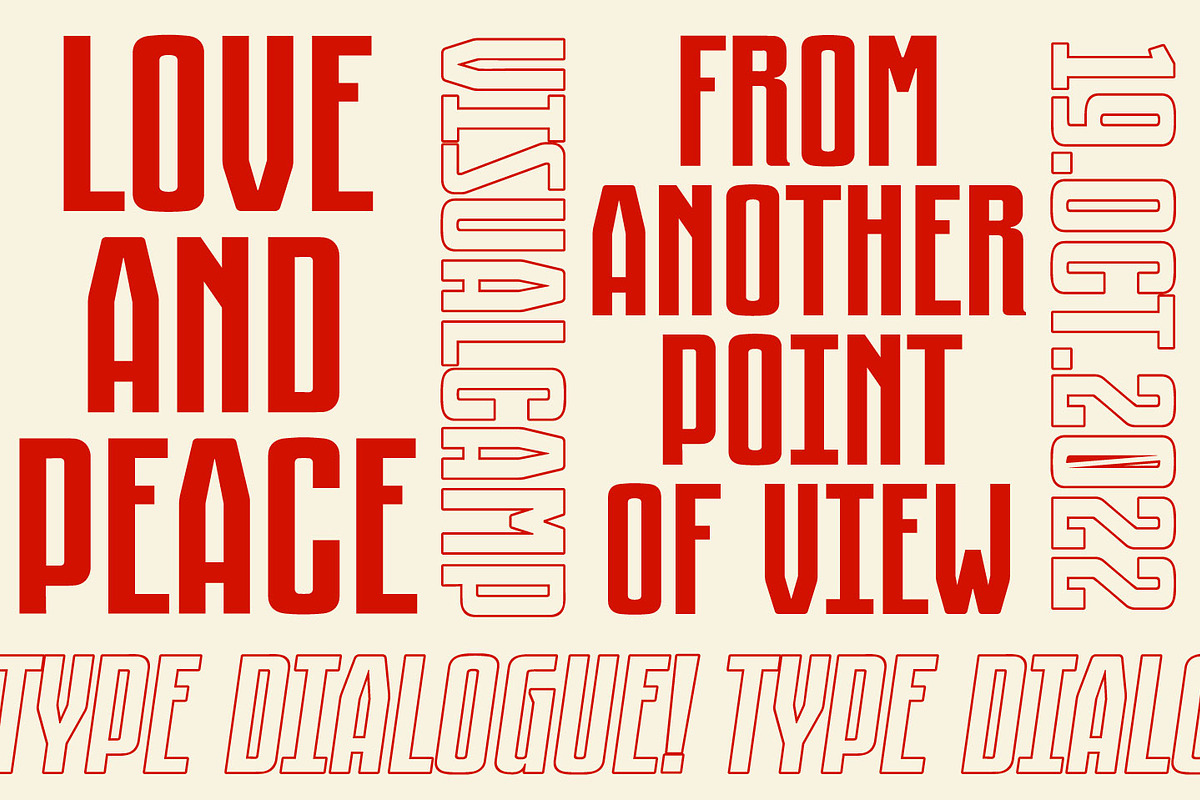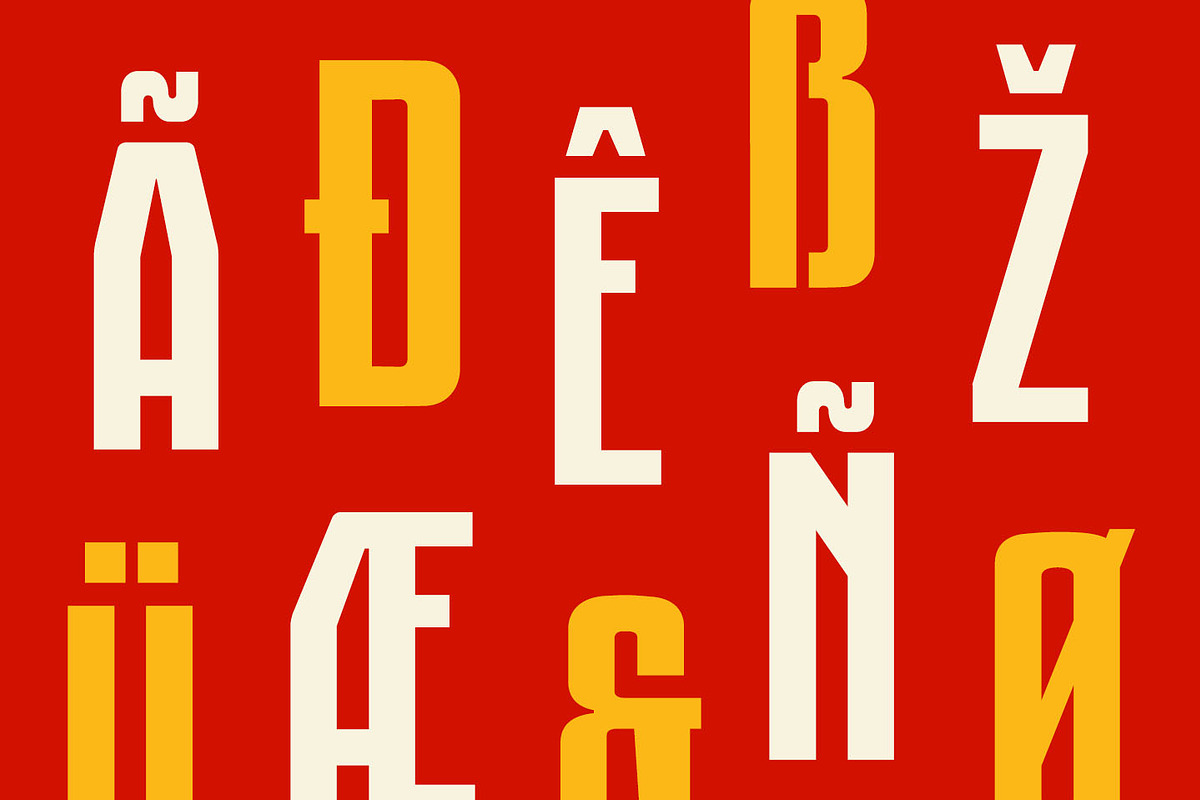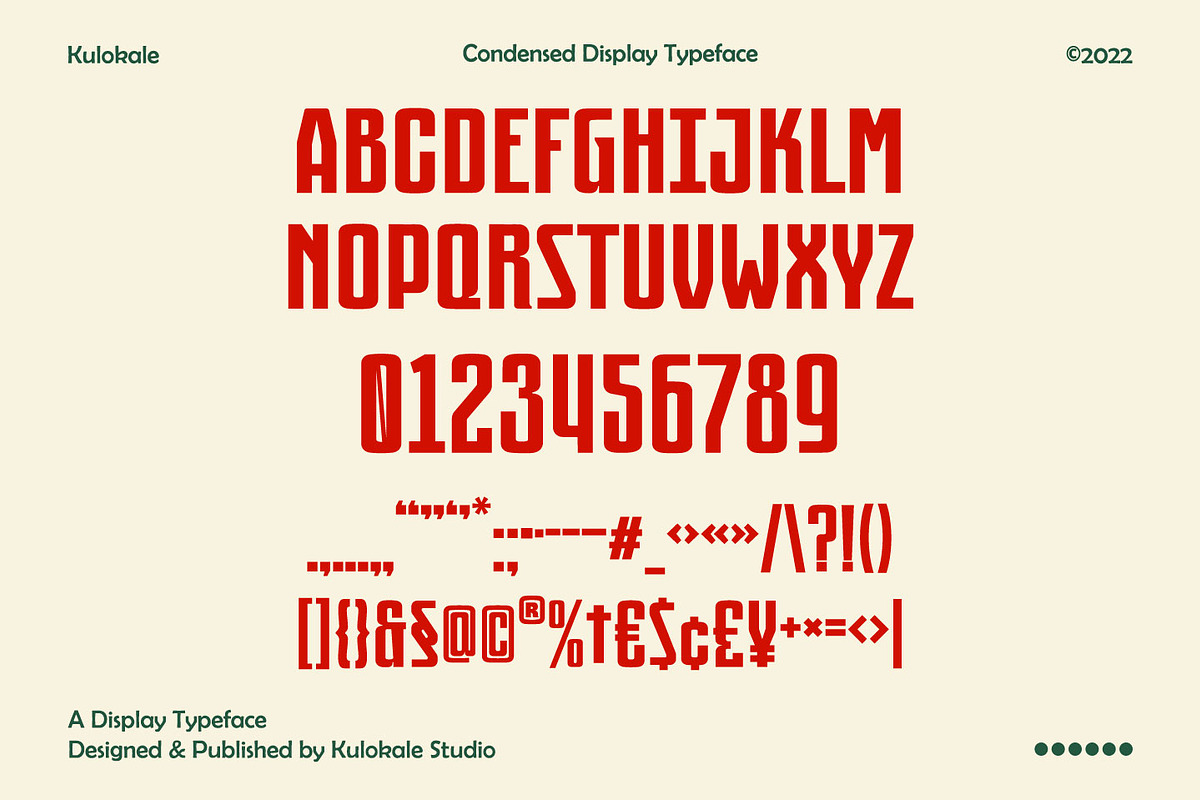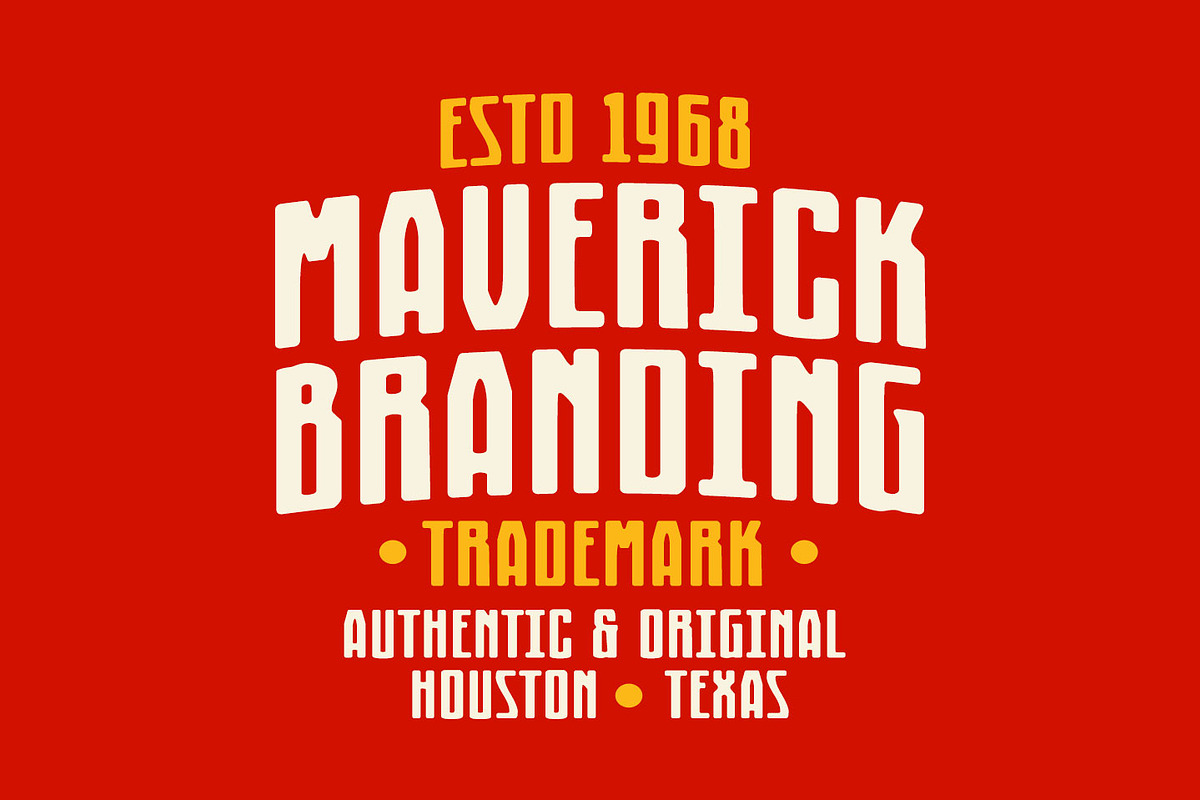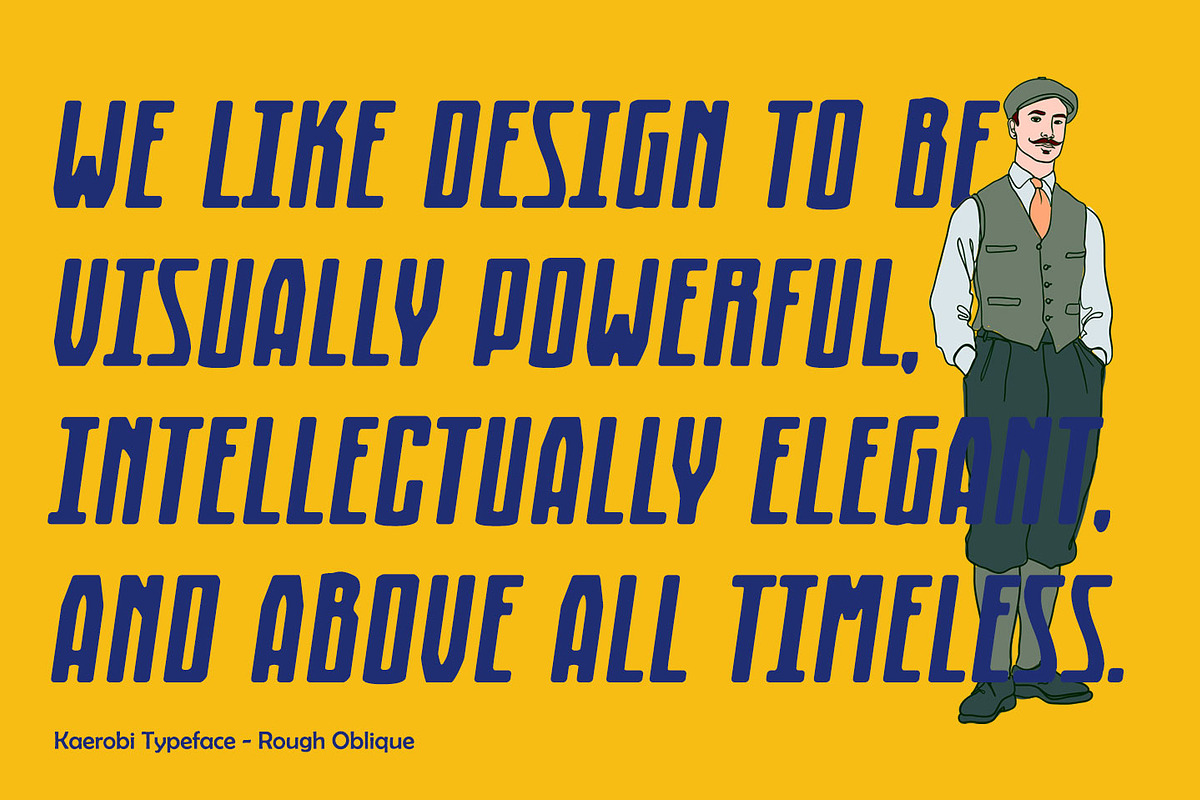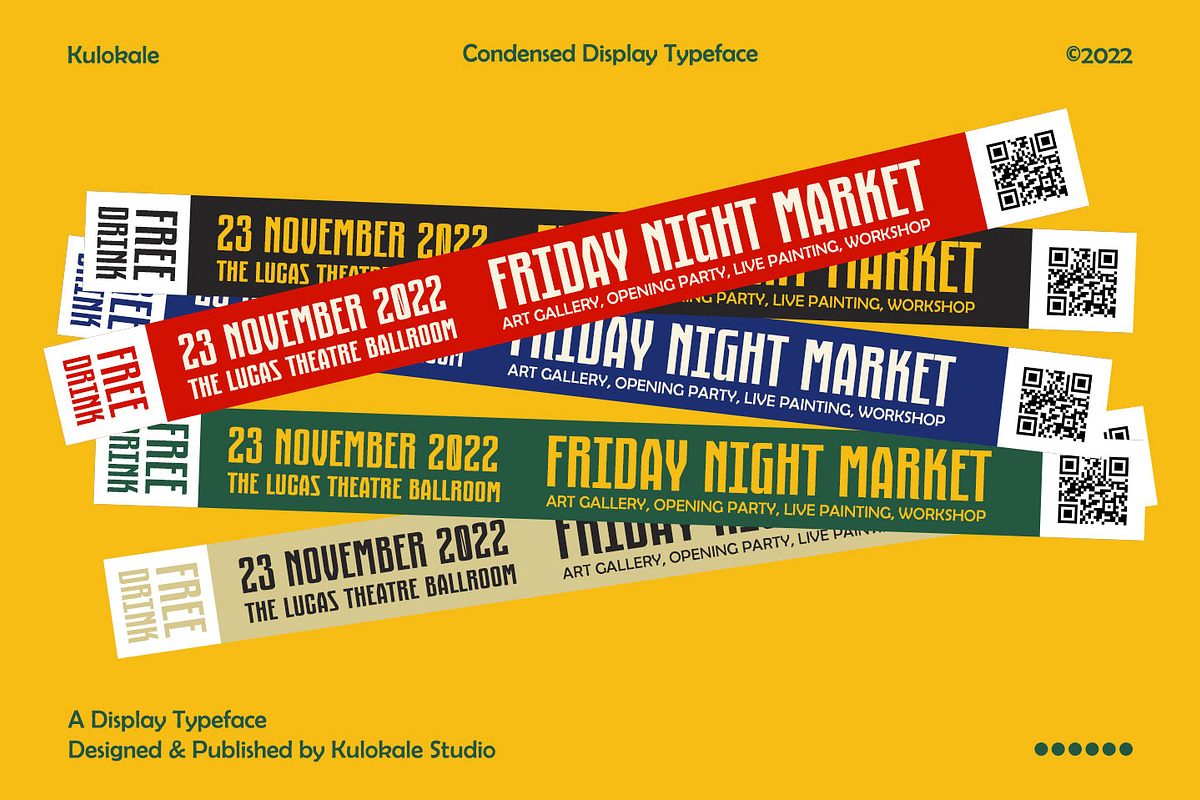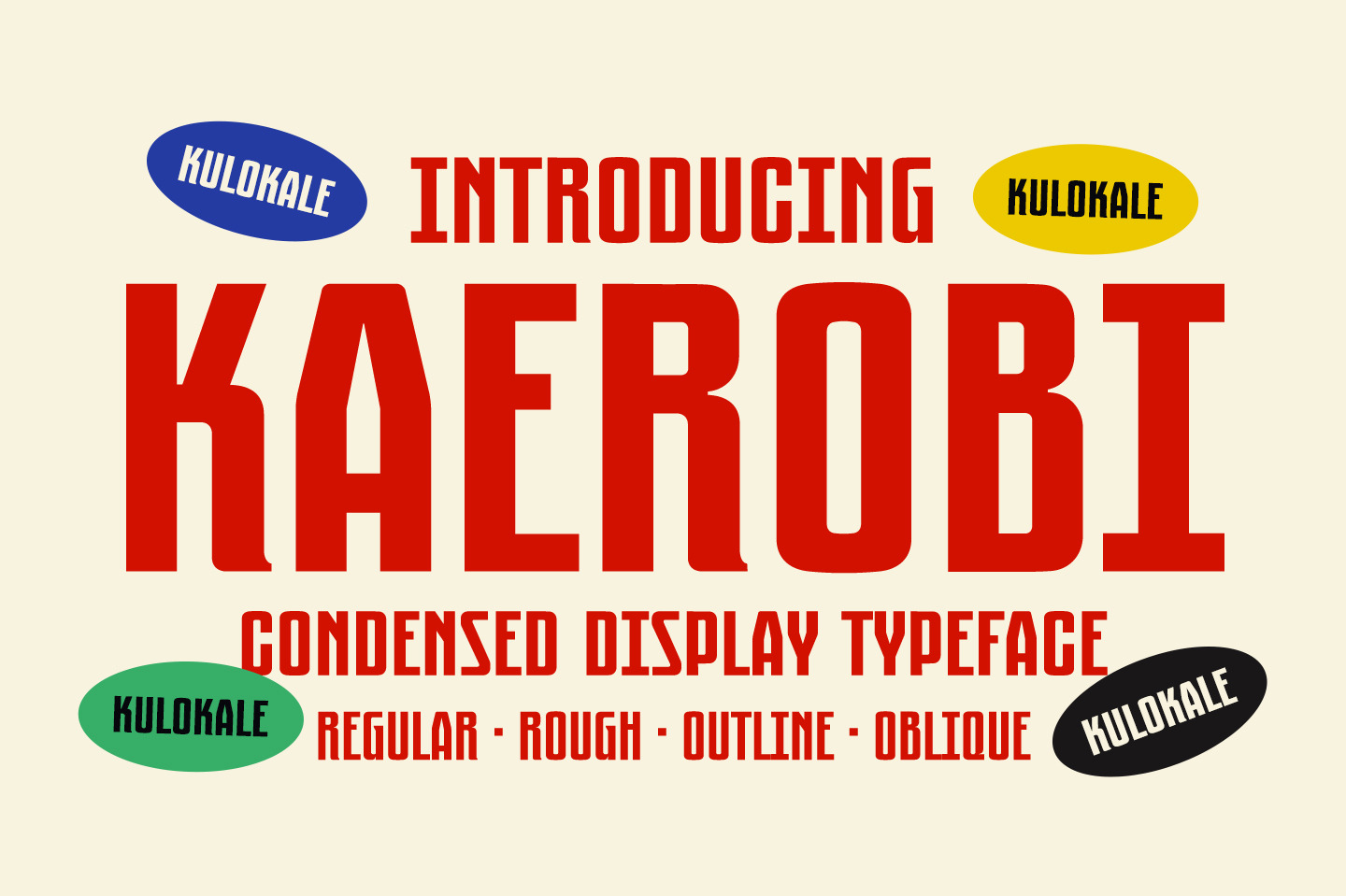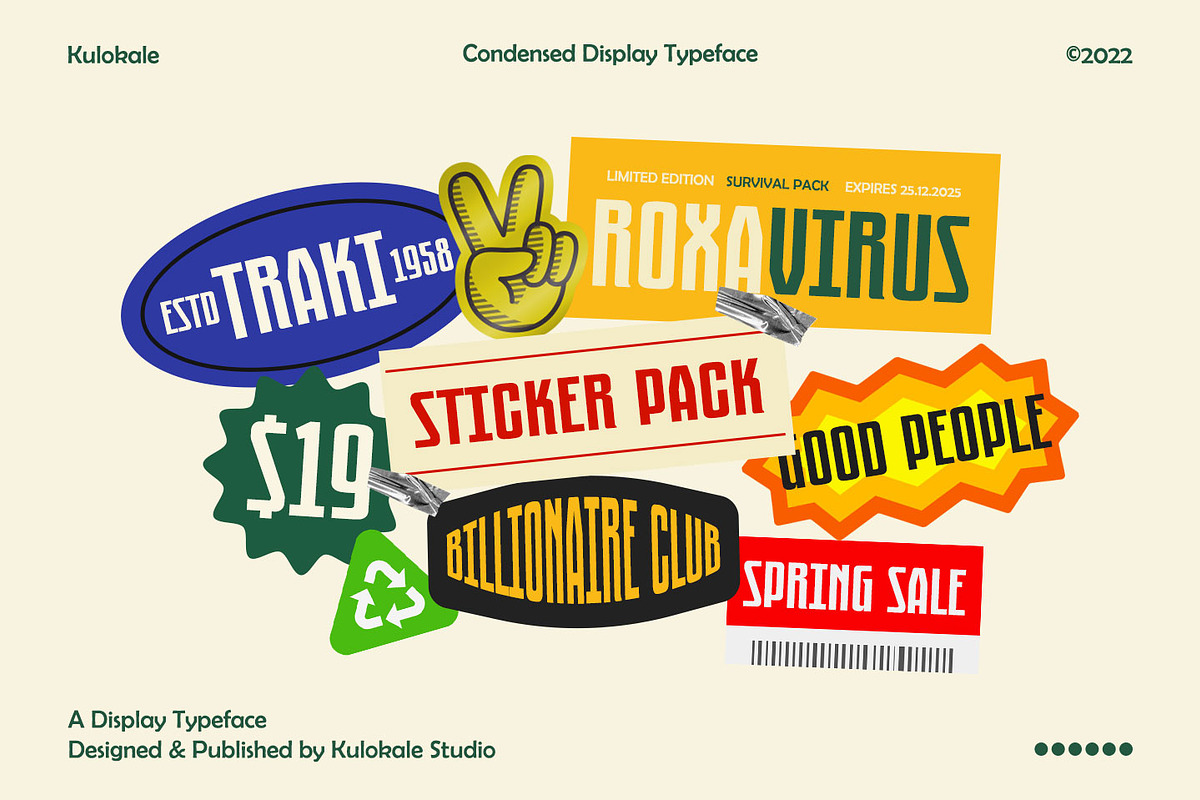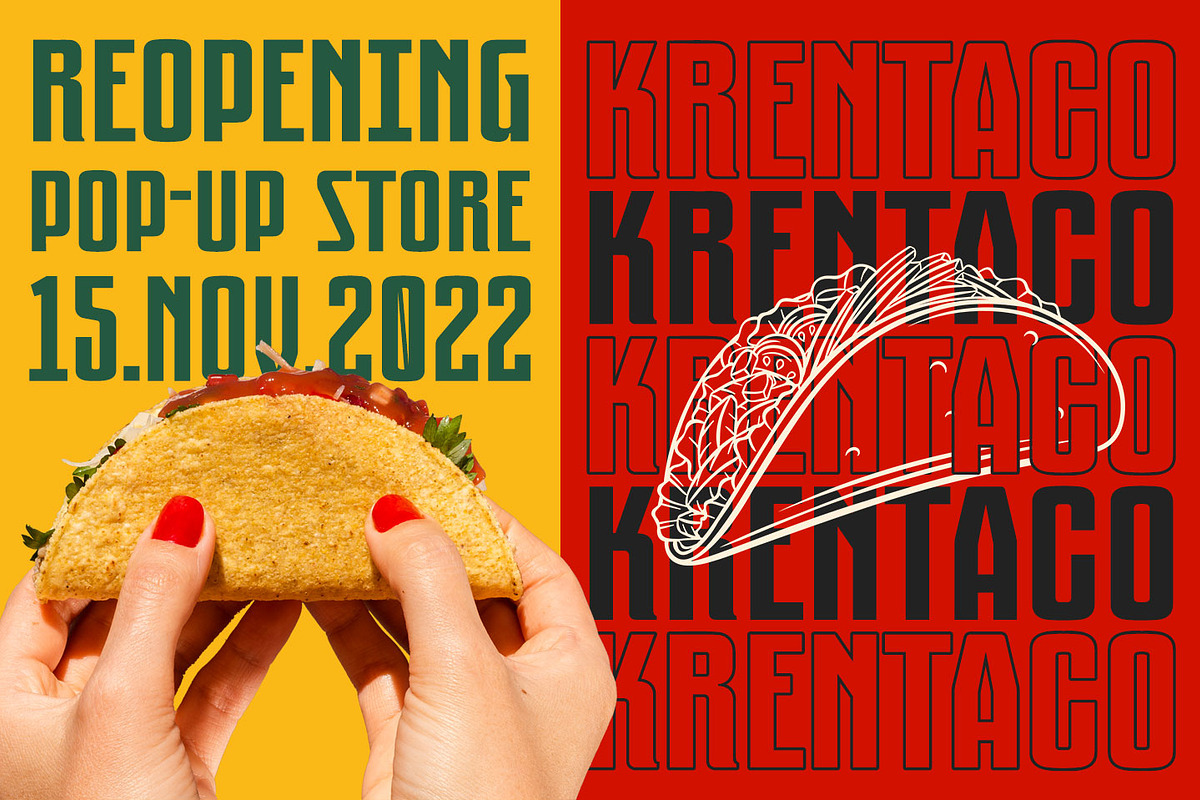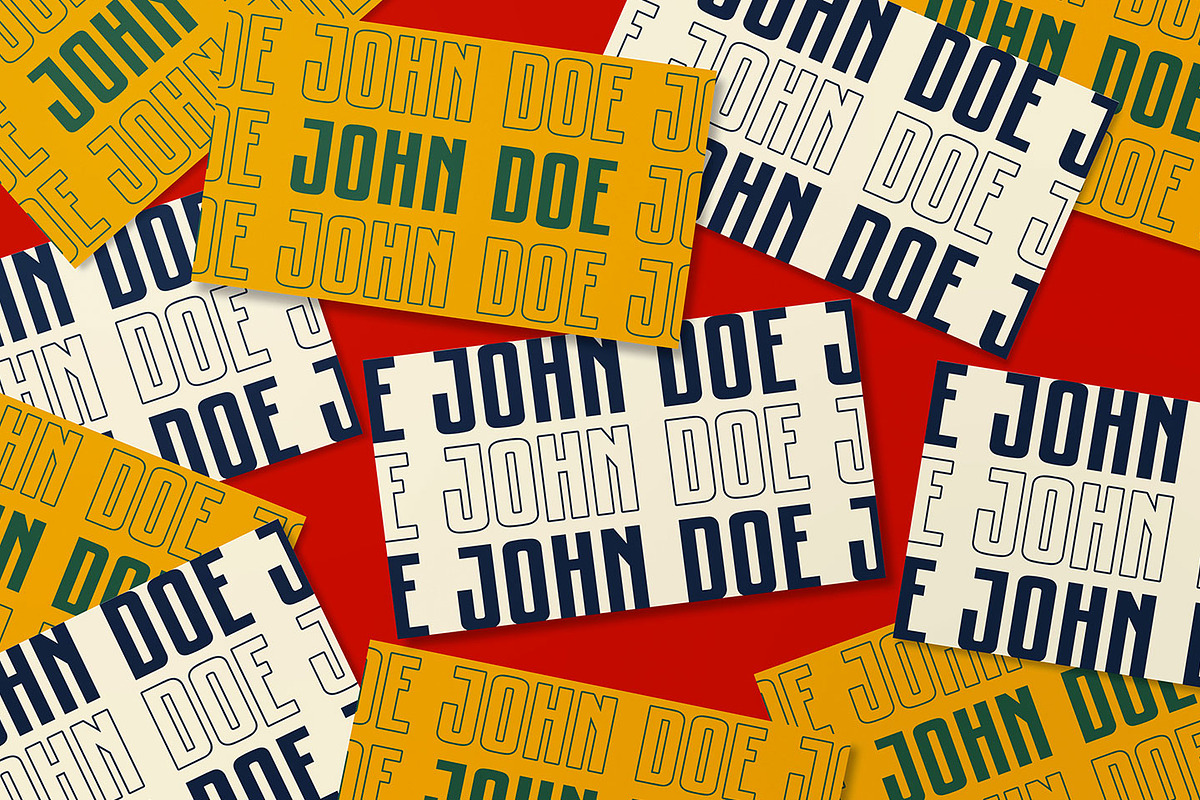
Kaerobi Condensed Display Font
Kaerobi is an condensed display font, and with a style that is very different from the others. This font comes in four styles, Regular, Oblique, Rough, and Outline Version.
Kaerobi is well-suited for posters, social media, headlines, magazine titles, clothing, large print formats - and wherever you want to be seen. Inspired by the style of design that is currently popular, and this is the answer to all the needs of every idea that you will pour in this modern era.